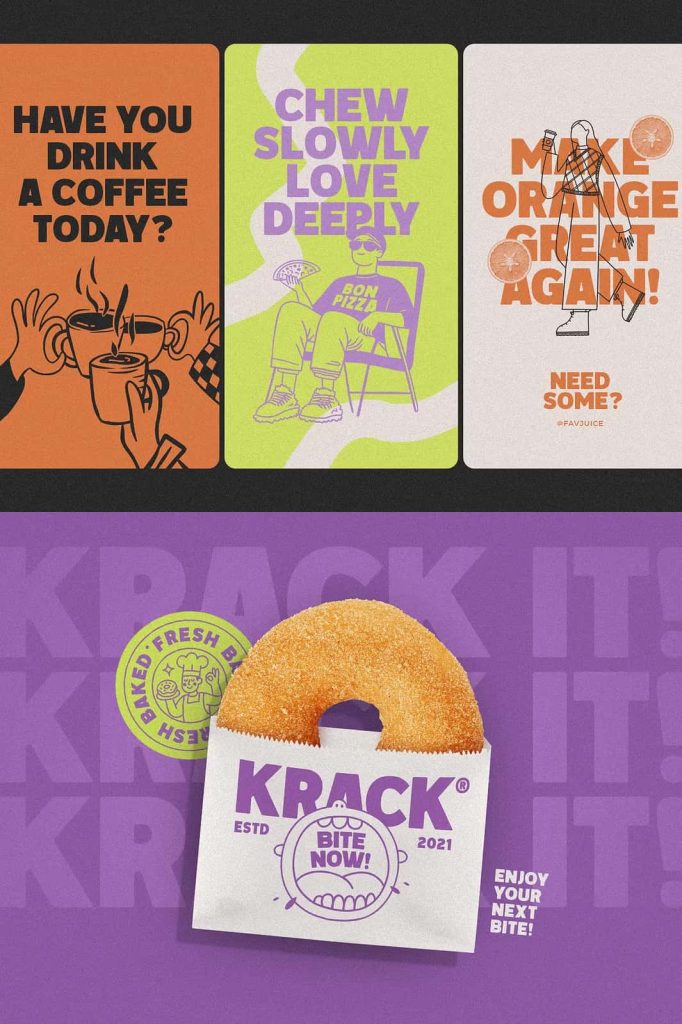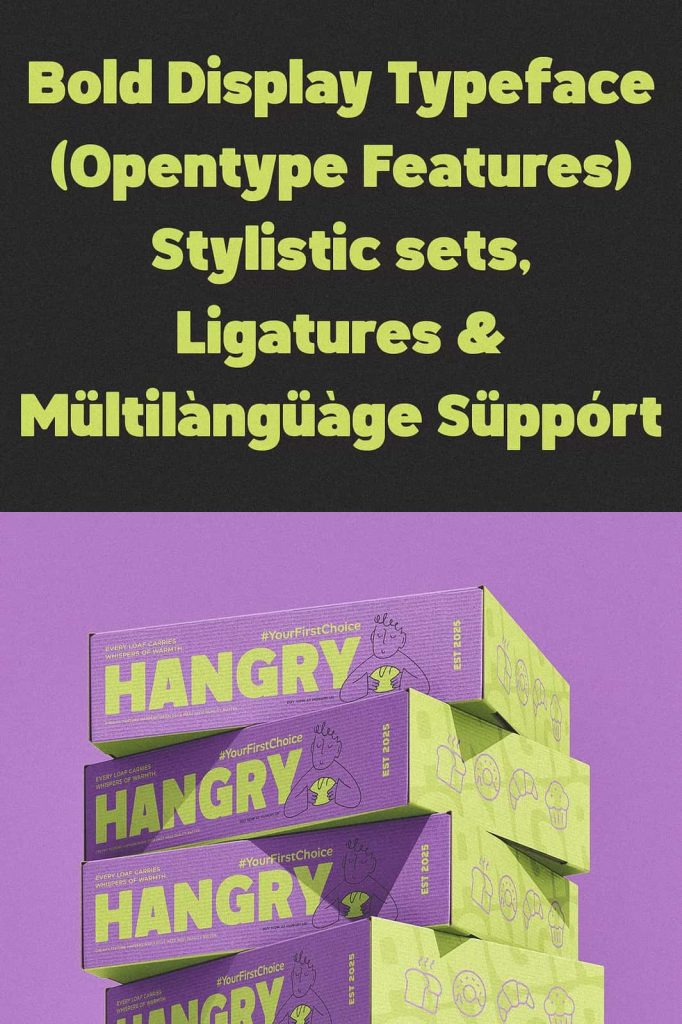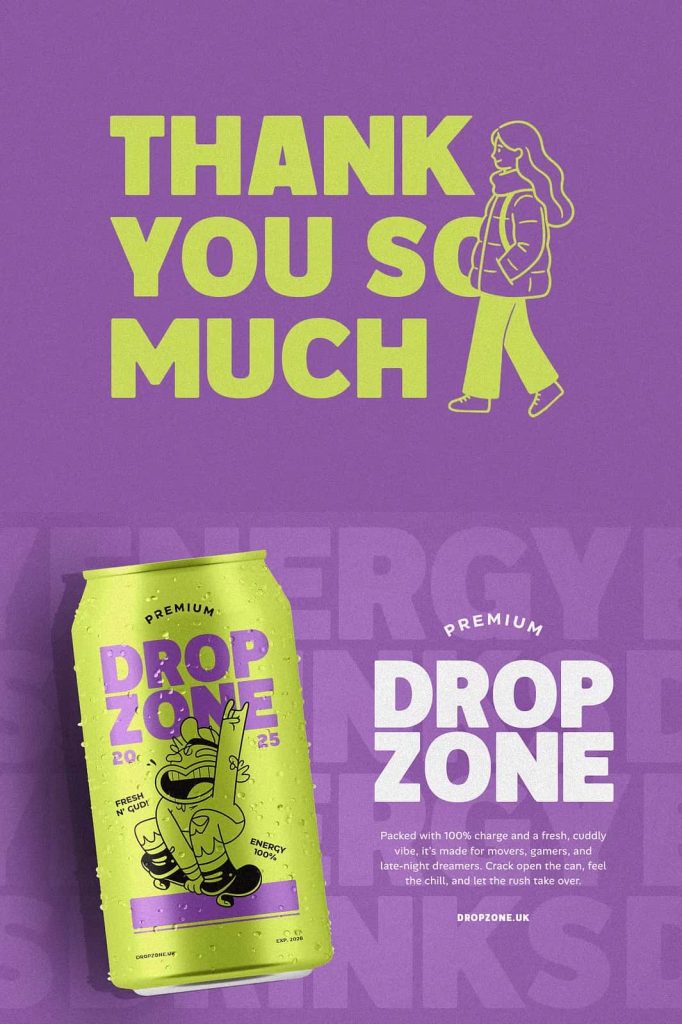
Grogia Retro Display Font – Bold 1980s-Inspired Typeface with Vintage Character
Grogia Retro Display Font is a powerful display typeface inspired by the iconic visual culture of the 1980s. Combining bold letterforms, smooth curves, and nostalgic design influences, Grogia captures the expressive spirit of vintage typography while maintaining a clean and modern appearance. This unique balance allows designers to create eye-catching layouts that feel both timeless and contemporary.
Designed for projects that demand attention, Grogia brings personality, energy, and confidence to every headline. Its thick shapes and rhythmic flow create typography that feels dynamic without sacrificing readability. Whether you are developing retro branding, designing posters, creating product packaging, or producing editorial layouts, Grogia delivers a strong visual impact that immediately stands out.
The font celebrates the bold design language of classic print advertisements, vintage magazines, music posters, and packaging from the 1980s while adapting perfectly to modern creative needs. The result is a versatile display font that combines nostalgia with professional quality.
Inspired by the Expressive Style of the 1980s
The 1980s introduced a distinctive era of typography filled with bold forms, playful proportions, and memorable visual identity. Grogia embraces these influences and transforms them into a modern display font suitable for today’s designers.
Rather than simply copying retro styles, Grogia refines them with balanced spacing, cleaner construction, and improved readability. This thoughtful approach allows the font to maintain authentic vintage charm while performing beautifully across contemporary design applications.
From music-inspired artwork to premium branding projects, Grogia captures the spirit of retro design while remaining highly practical for professional use.
Bold Letterforms with Smooth Curves
One of Grogia’s defining features is its combination of thick letterforms and soft curves. The bold structure gives headlines a strong visual presence, while the rounded details introduce warmth and friendliness that prevent the typography from feeling too rigid.
The smooth rhythmic flow creates attractive word shapes that naturally guide the viewer’s eye across the design. This balance of strength and softness makes Grogia versatile enough to fit a wide range of creative industries and visual styles.
Whether used in large titles or promotional graphics, Grogia consistently delivers typography that feels energetic, approachable, and full of personality.
Key Features
- Bold display font inspired by 1980s aesthetics.
- Thick letterforms with strong visual impact.
- Soft curves for a friendly and approachable feel.
- Clean construction with excellent readability.
- Retro character combined with modern versatility.
- Ideal for headlines, logos, and display typography.
- Suitable for print and digital media.
Create Memorable Branding with Retro Personality
Typography plays a major role in building a recognizable brand identity, and Grogia offers businesses a distinctive visual voice that feels both nostalgic and modern. Its bold character helps brands communicate creativity, confidence, and originality.
Grogia works particularly well for fashion labels, cafés, restaurants, entertainment brands, music-related businesses, creative agencies, lifestyle products, retro-inspired companies, and modern startups seeking unique typography.
Whether used in logos, business cards, websites, packaging, or promotional materials, Grogia helps create branding that customers remember.
Perfect for Posters and Editorial Design
Display fonts perform best when they attract attention, and Grogia excels in poster design, magazine covers, editorial headlines, and promotional graphics. Its thick letterforms remain highly visible even at large sizes, making it ideal for projects that rely on strong typography.
The font also works beautifully for album artwork, event promotions, festival posters, advertising campaigns, and creative publications where visual impact is essential.
Designers can use Grogia to create layouts that feel energetic, expressive, and visually engaging without overwhelming the overall composition.
Excellent for Packaging and Product Design
Product packaging often serves as the first point of interaction between brands and customers, and Grogia helps products make a strong first impression. Its retro-inspired style adds personality to labels, boxes, tags, stickers, and retail packaging.
The font is particularly effective for coffee packaging, food products, clothing labels, cosmetics, beverages, artisan goods, and creative merchandise where memorable typography enhances the overall brand experience.
Ideal for Digital Content and Social Media
Grogia performs beautifully across digital platforms, making it an excellent choice for websites, online advertisements, social media graphics, YouTube thumbnails, blog headers, and digital marketing campaigns.
Grogia Retro Display Font is a bold and expressive typeface inspired by the iconic aesthetics of the 1980s. Featuring thick letterforms, soft curves, smooth rhythm, and outstanding readability, Grogia delivers the perfect combination of vintage personality and modern versatility. Ideal for branding, logos, posters, packaging, editorial design, social media graphics, and promotional materials, Grogia helps designers create typography that captures attention and leaves a lasting impression. Add Grogia Retro Display Font to your collection and bring timeless retro energy into every creative project.